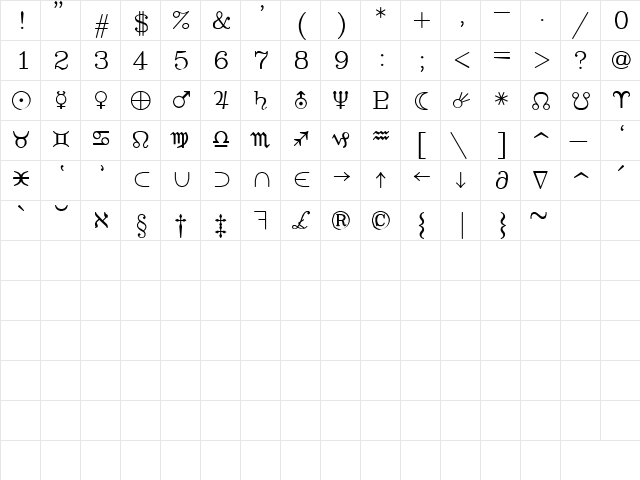
SWAstro Regular
Design Context for SWAstro Typeface
SWAstro offers clean, dependable letterforms without strong stylistic allegiance, making it a practical choice for designers who need flexibility.